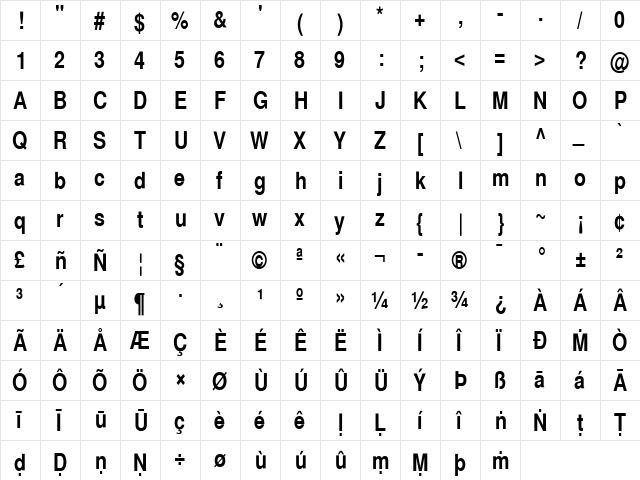
Pali Helvetica Cond Regular
Design Context for Pali Helvetica Cond Typeface
Pali Helvetica Cond takes a measured approach to typography — its balanced proportions and neutral character make it a reliable workhorse for both digital and print work. Its narrow stance lets it pack a punch even in space-constrained designs.